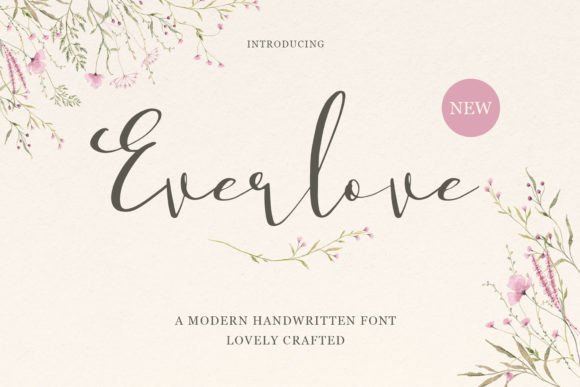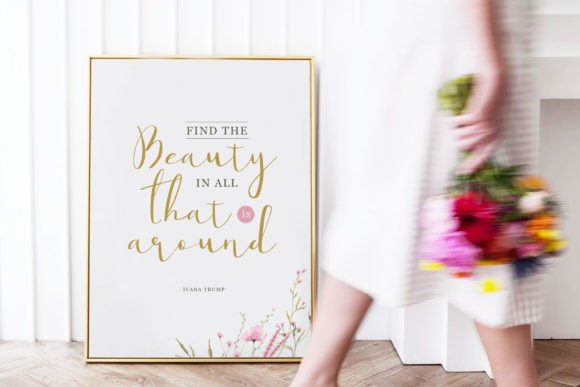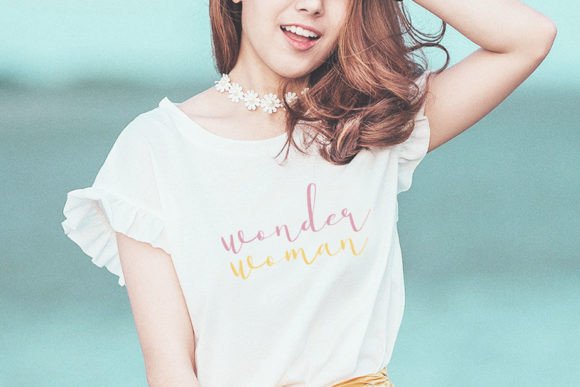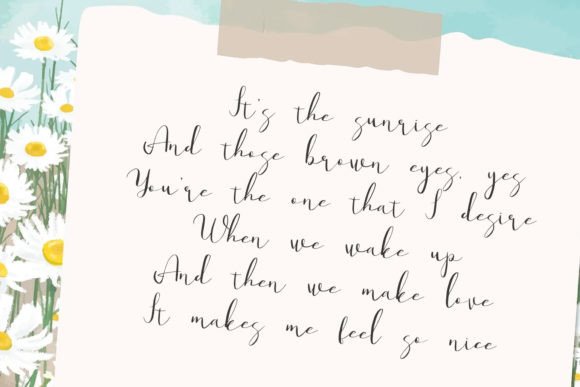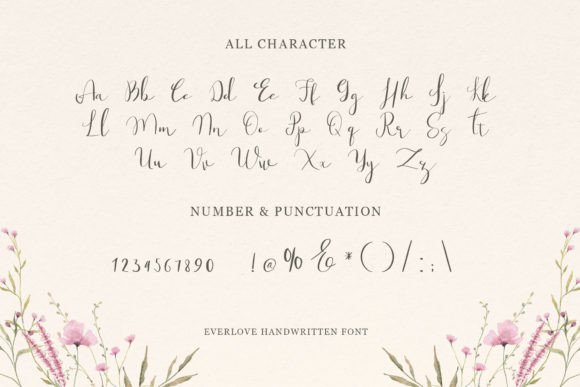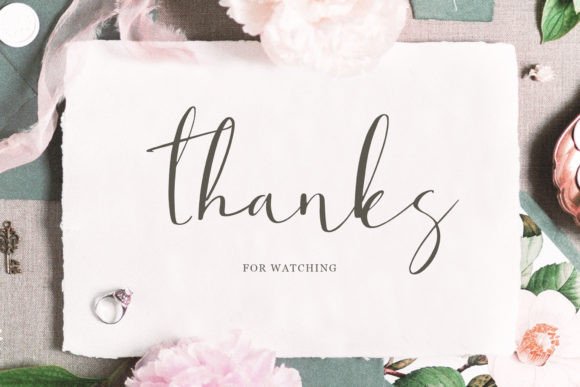
About Everlove Font
Everlove is a lovely and beautiful handwritten font. Use it for any design projects that require a wonderful appearance! Everlove is perfect for logos, branding, wedding invitations, business cards, greeting cards, signboards, posters, magazines, social media, planner prints, crafting, and websites.